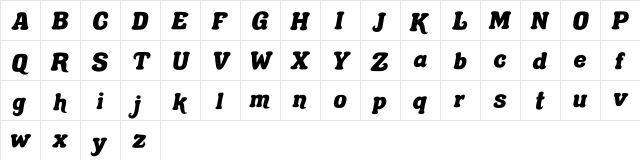
Gecko Lunch Gecko Lunch
| Foundry | Fenny Wiryani |
| Designer | Fenny Wiryani |
Design Context for Gecko Lunch Typeface
Gecko Lunch offers clean, dependable letterforms without strong stylistic allegiance, making it a practical choice for designers who need flexibility.